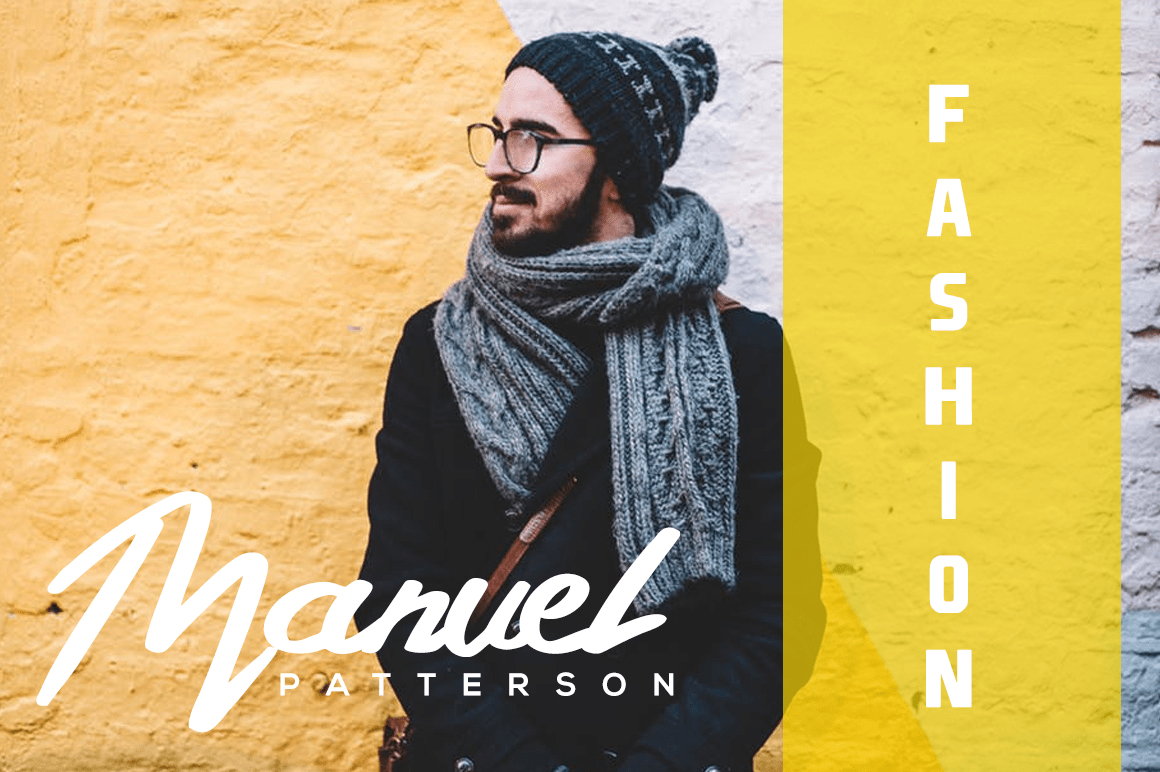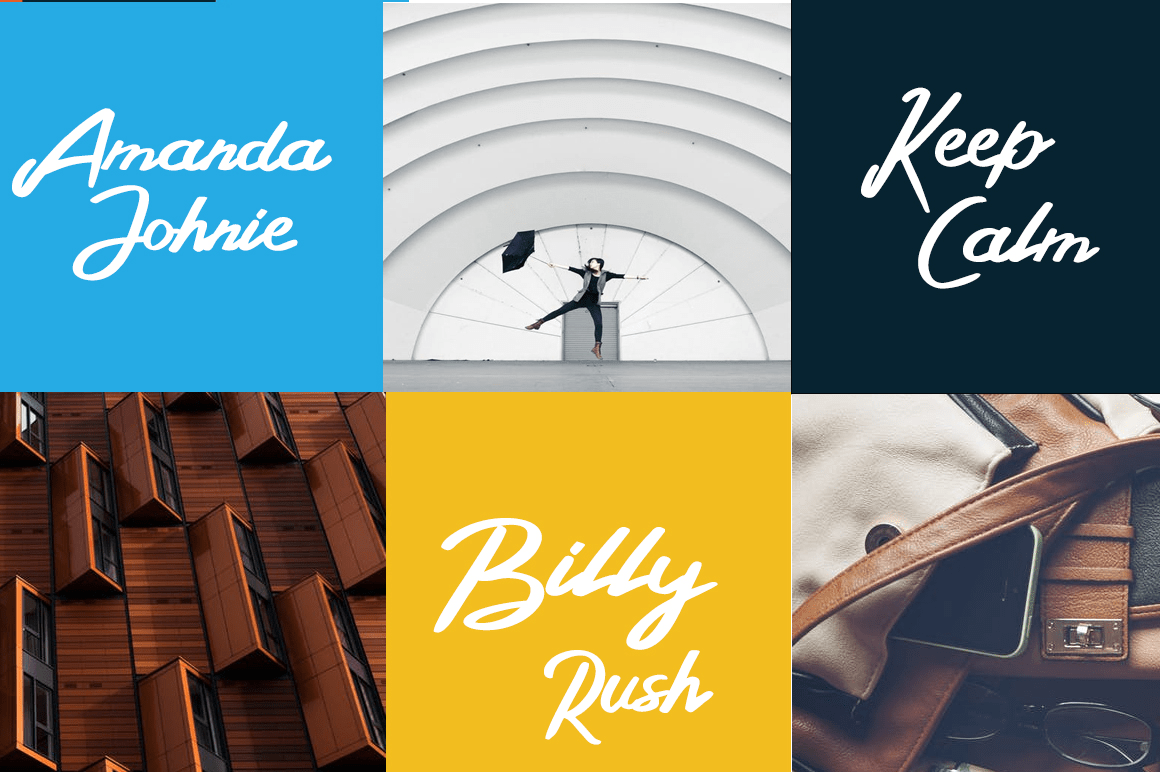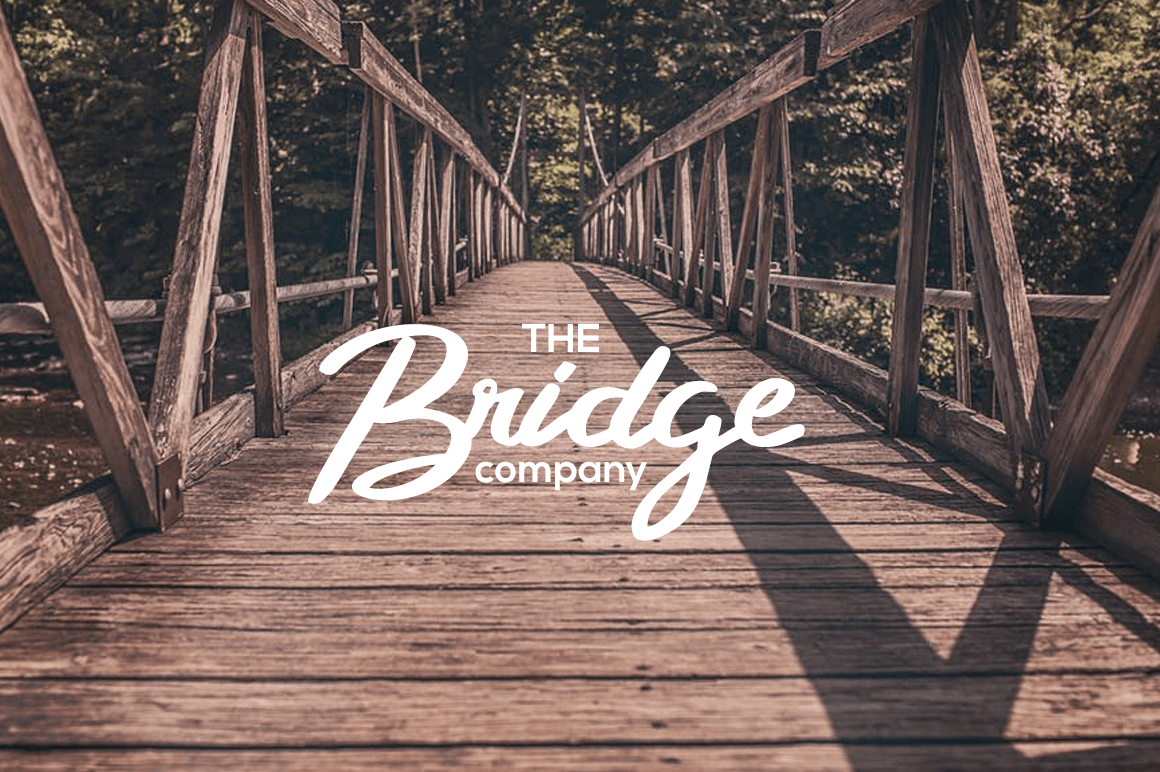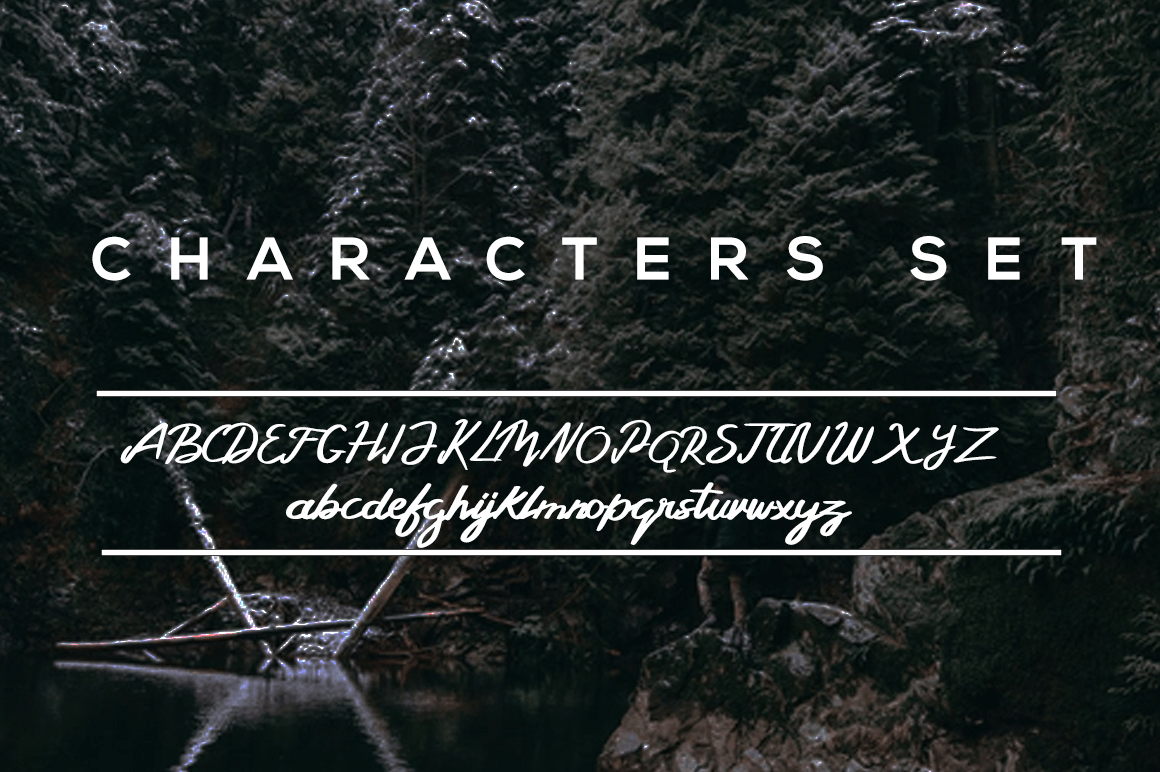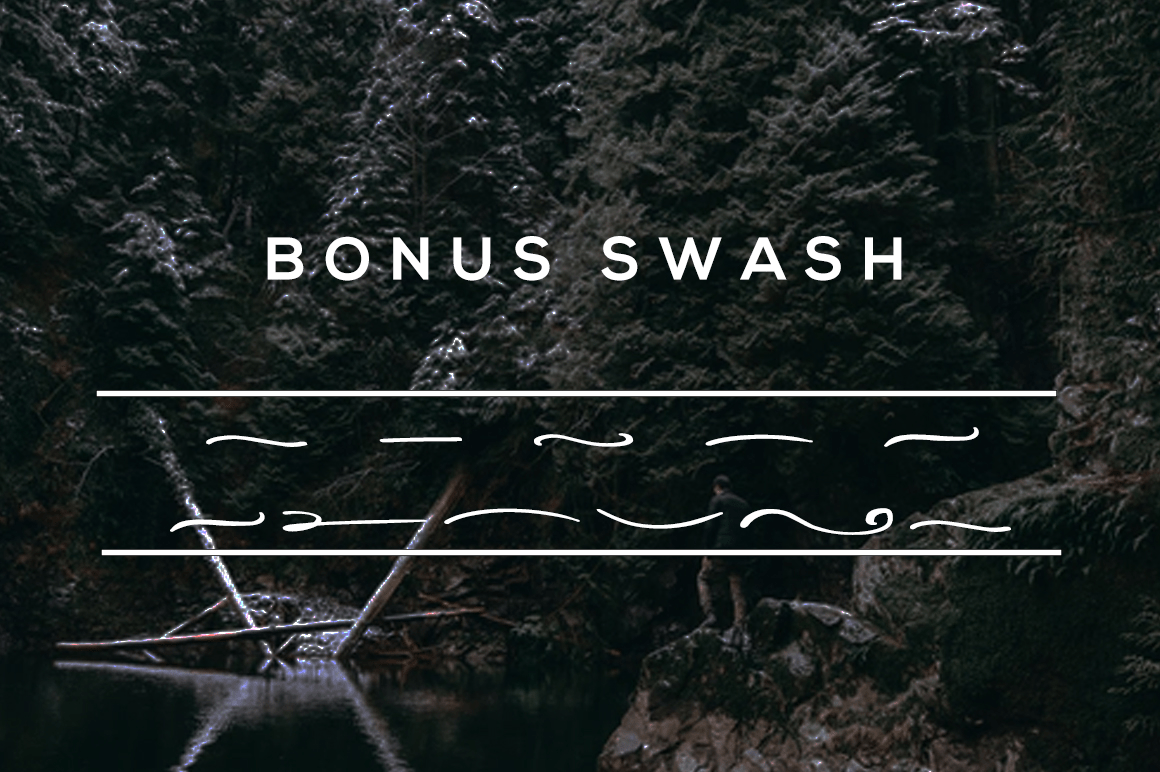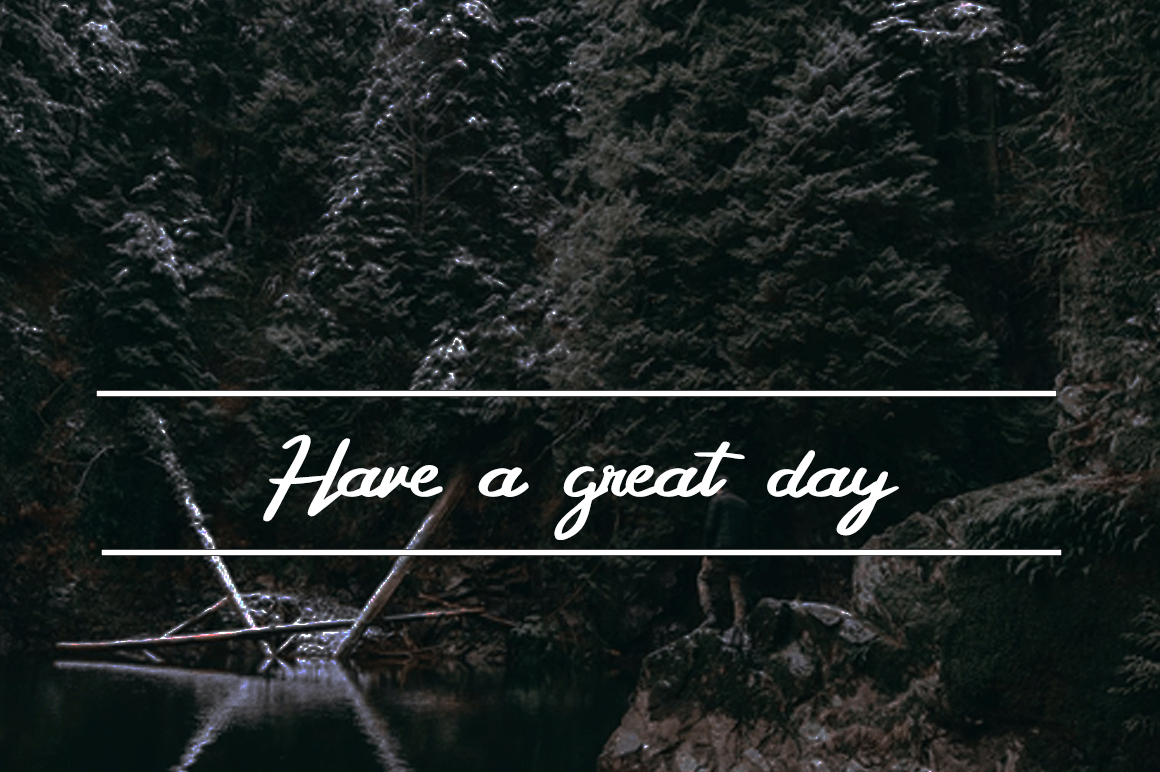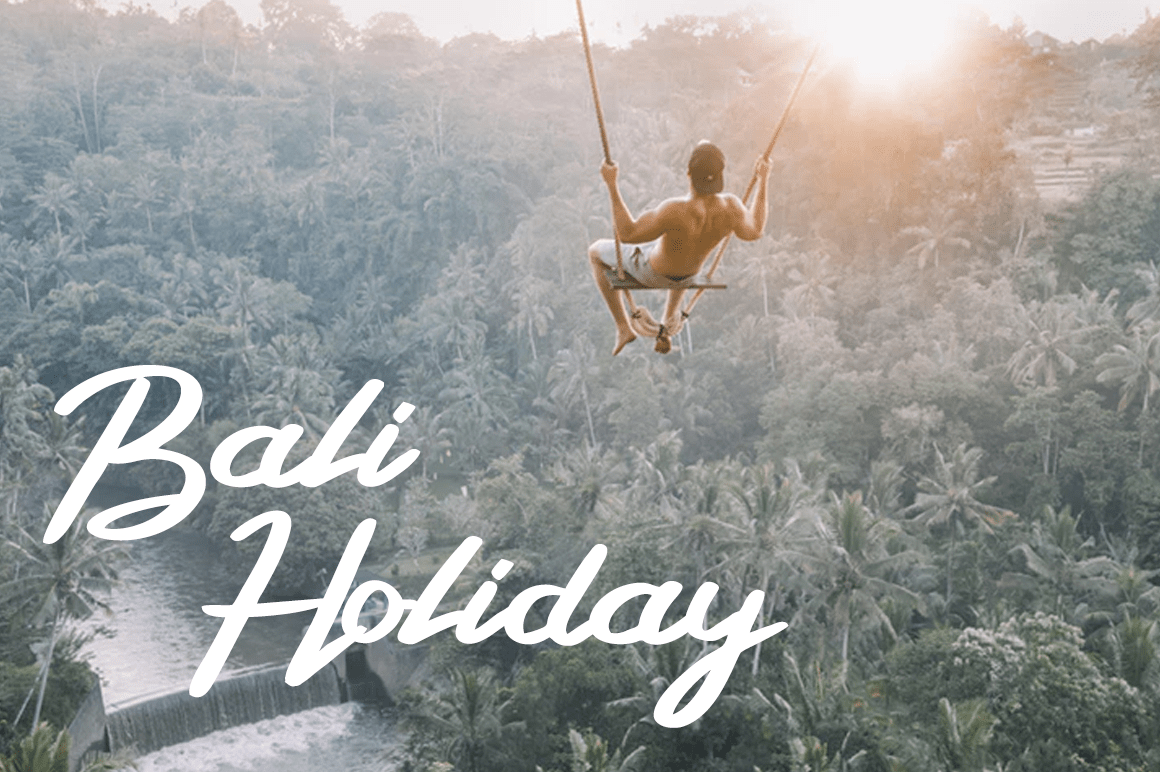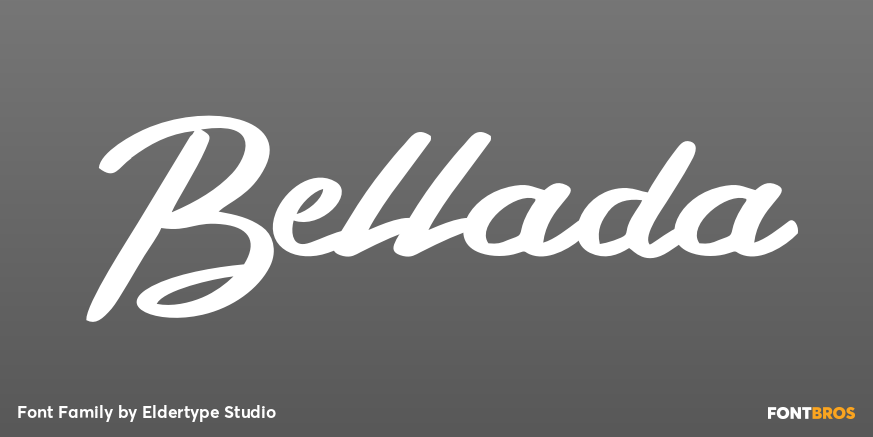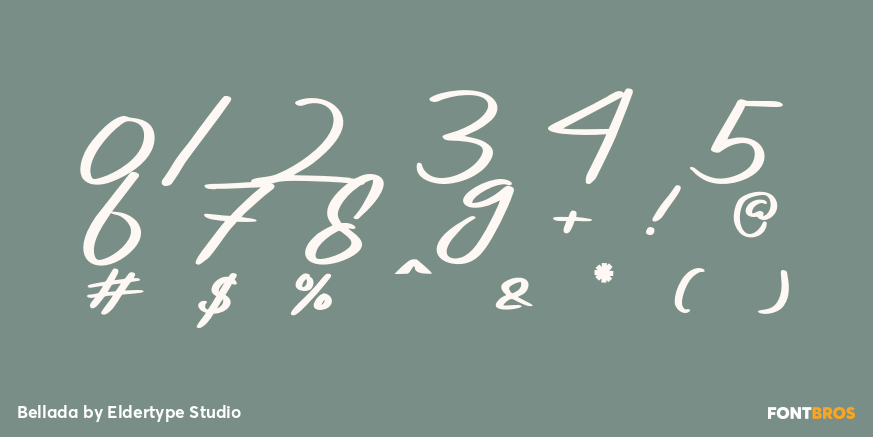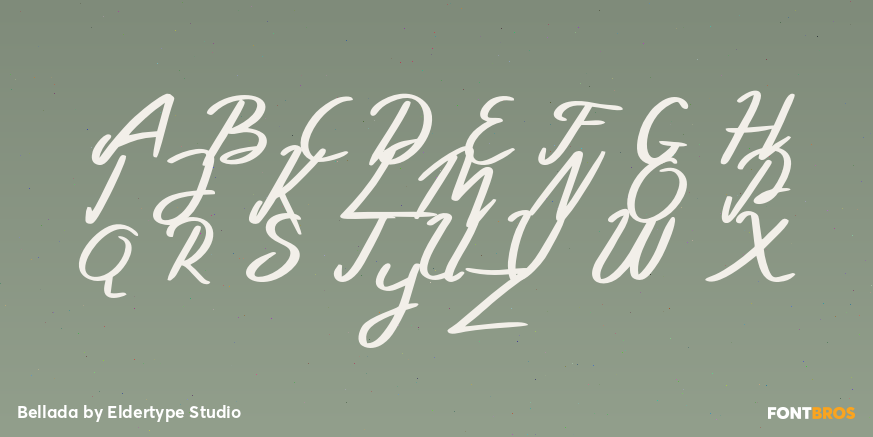
Bellada
Font Family by Eldertype Studio
Bellada is a beautiful handmade brush font, with a bold weight perfect for adding some romance and charm to your designs. This script functions most strongly as a display or headline font. suitable for logo, logotype, branding, fashion, label, book cover, t-shirt, instagram post, and other